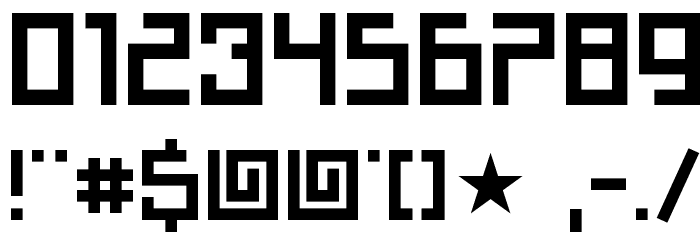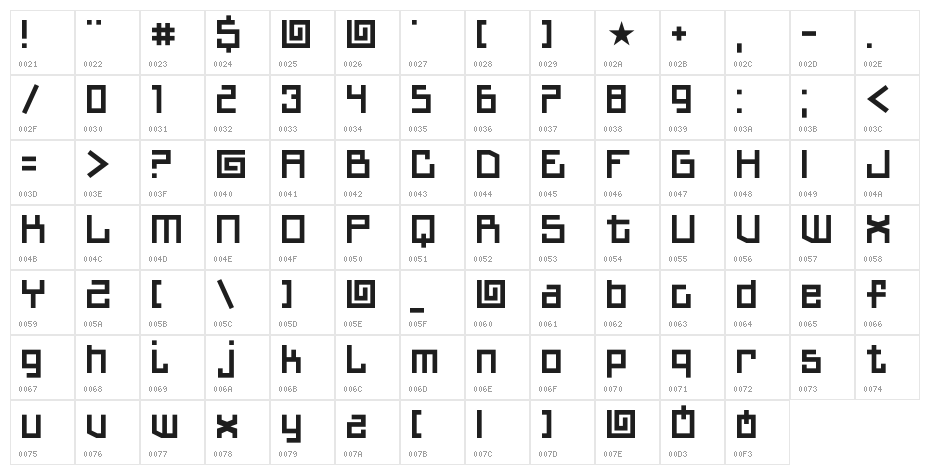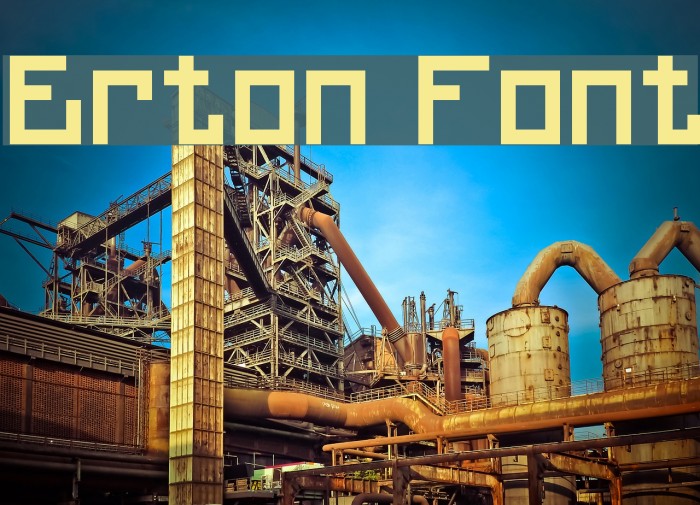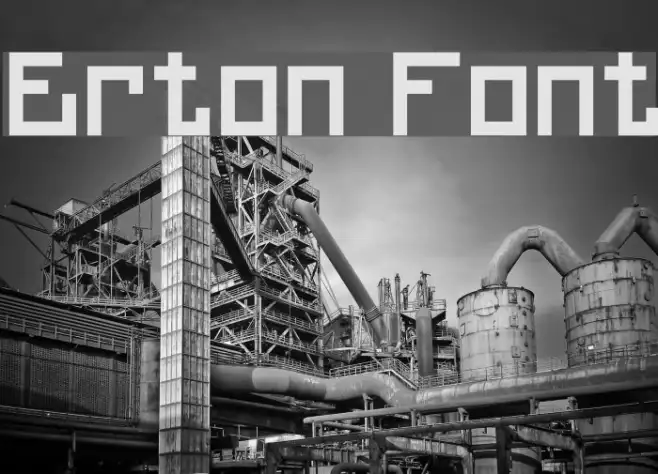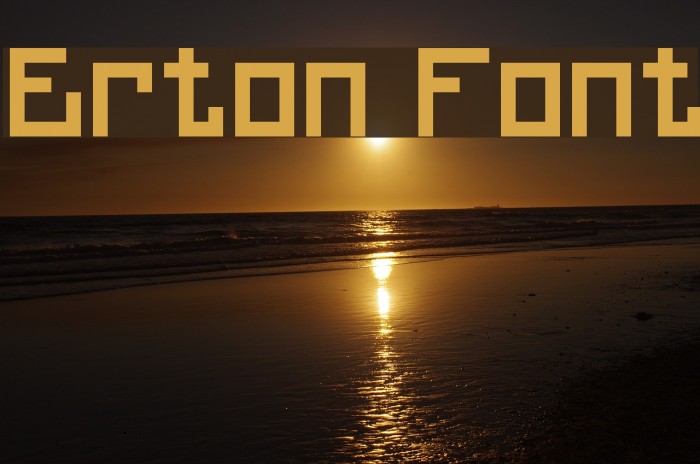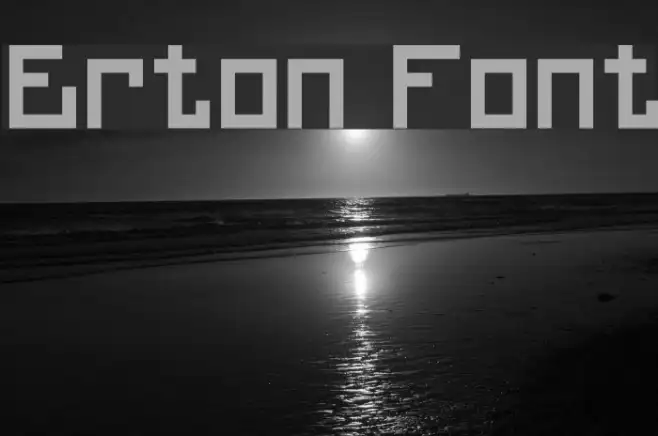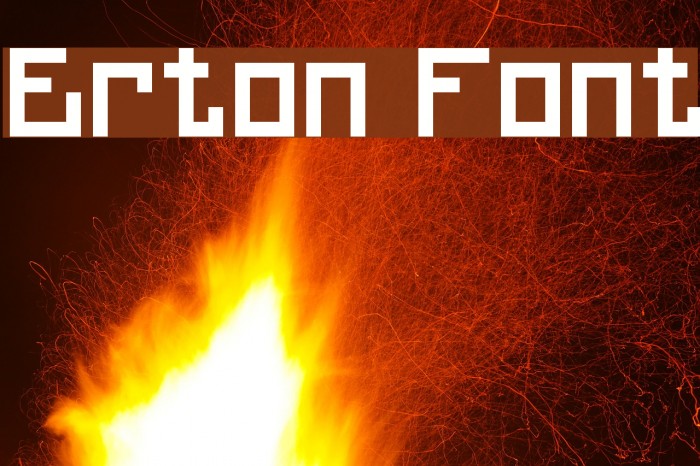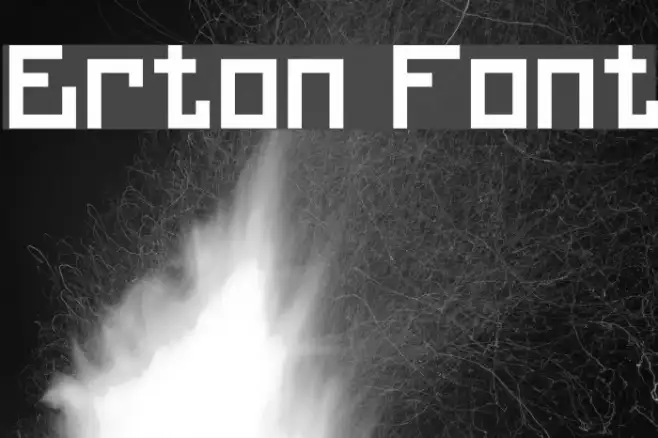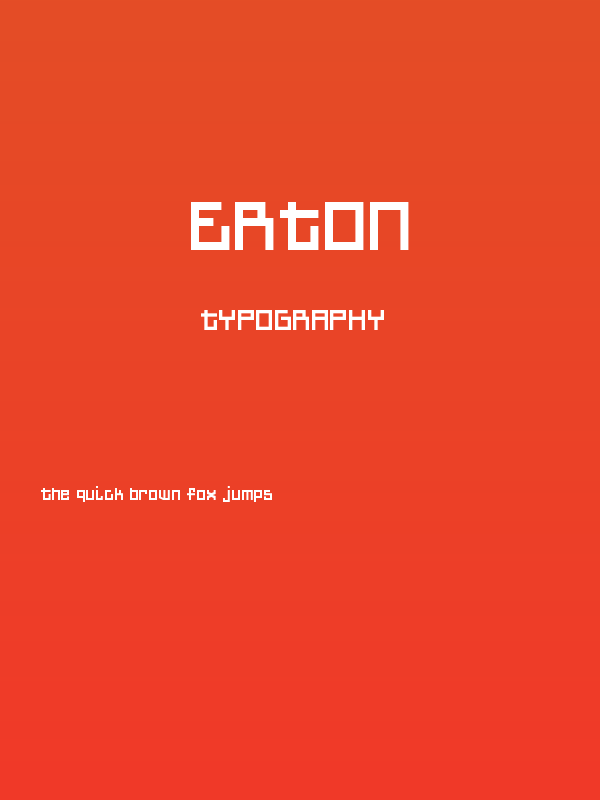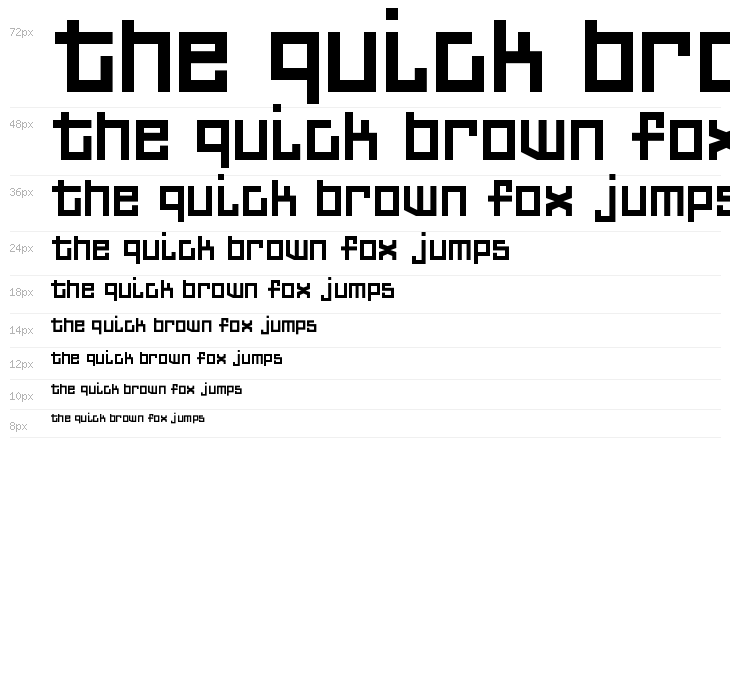
Erton Font
Erton Description
This font features a bold, geometric design with a distinctly modern and digital aesthetic. The characters are constructed with sharp, angular lines and a consistent stroke width, giving it a blocky and robust appearance. The uppercase and lowercase letters maintain a uniform height, enhancing its structured and cohesive look. The numerals and special characters follow the same geometric style, ensuring visual consistency across all elements. This font's design is reminiscent of digital displays or retro video game graphics, making it ideal for projects that require a futuristic or tech-inspired feel.
| Proposed Projects | Ideal for tech branding, video game graphics, digital interfaces, and futuristic-themed designs. |